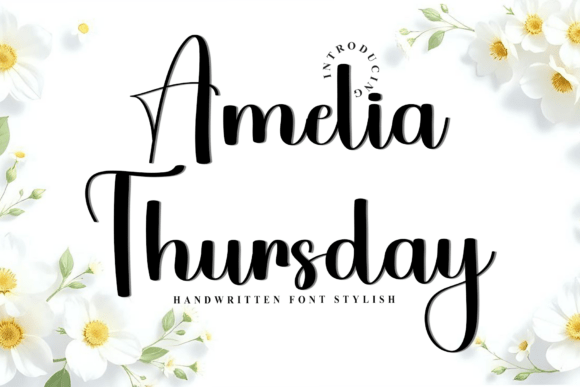
The Quest for the Perfect Font: Discovering Amelia Thursday
I still remember the frustration of working on a design project, hours spent crafting the perfect layout, only to be held back by a font that just didn’t feel right. The client wanted something unique, something that would make their brand stand out, but I was stuck in a sea of similar sans-serifs and overused script fonts. That’s when I stumbled upon Amelia Thursday, a beautiful and eye-catching font that has since become a staple in my design toolkit.
First Impressions: A Beautiful and Unique Font
Amelia Thursday is a soft, unique font that immediately caught my attention with its distinctive strokes and special character. Its versatility makes it perfect for a wide range of design projects, from crafts and creative works to branding and advertising. With various characters to choose from, this font is sure to enhance your designs and appeal to a broad audience across different artistic and creative fields.
- ✨ Unique and eye-catching design: Amelia Thursday’s soft, distinctive strokes make it stand out from more traditional fonts.
- 💫 Perfect for creative projects: From crafts to branding, Amelia Thursday adds a touch of personality to any design.
⚠️ While Amelia Thursday is an excellent font, it’s worth noting that some users may find the font’s uniqueness can make it challenging to read in large blocks of text. Additionally, the font’s stylistic alternates and glyphs may require some experimentation to get the desired look.
The Story Behind Amelia Thursday
Amelia Thursday was designed with the intention of creating a unique and versatile font that would inspire creativity and self-expression. The designer’s goal was to craft a font that would be both beautiful and functional, with a distinctive character that would make it stand out in any design project.
| What makes Amelia Thursday unique? | Amelia Thursday’s distinctive strokes and special character make it a one-of-a-kind font that’s perfect for creative projects. |